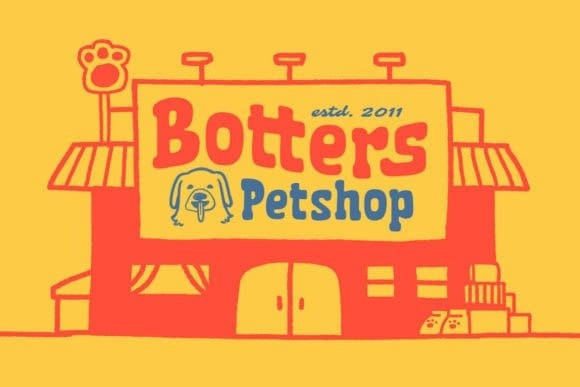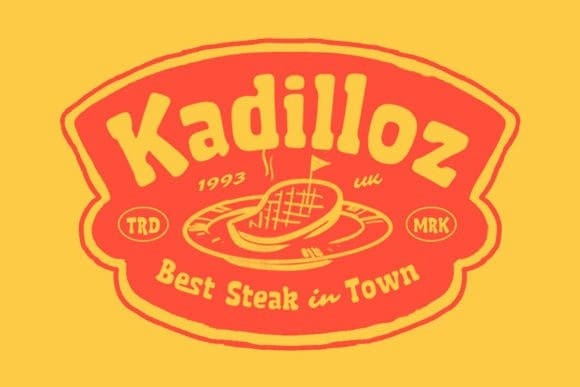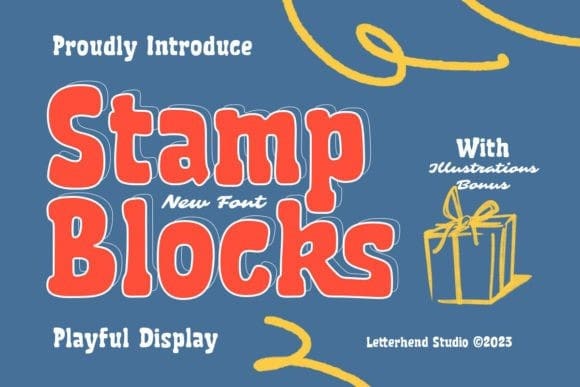
Stamp Blocks Font
Stamp Blocks Font is a fun and cheerful display font that joyfully imprints a playful personality onto your designs. With bold letterforms and a lively aesthetic, it brings a vibrant and whimsical touch to any project. Ideal for conveying a sense of excitement and creativity, Stamp Blocks adds a cheerful and dynamic flair to your creative expressions.